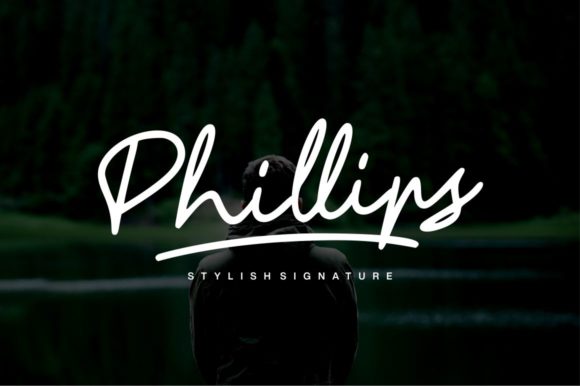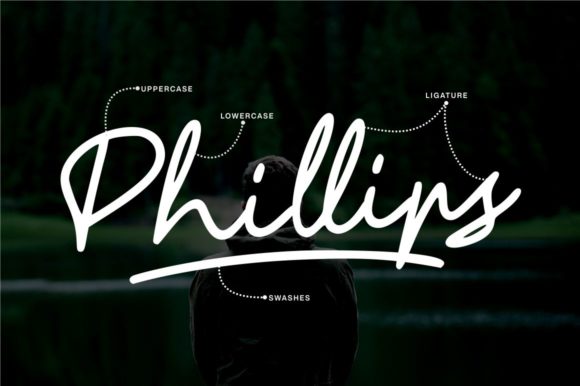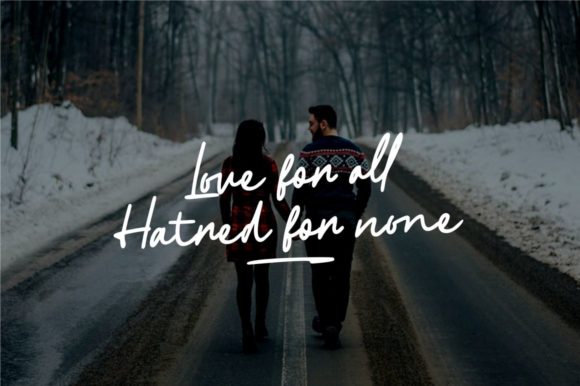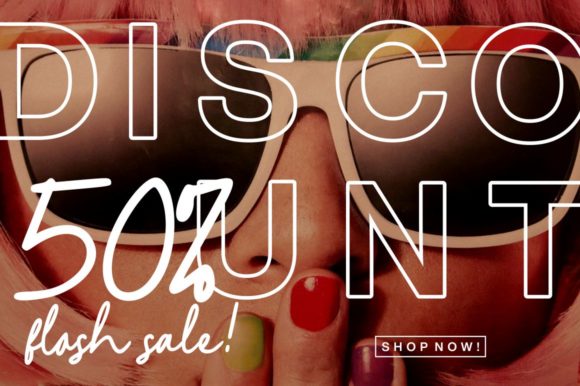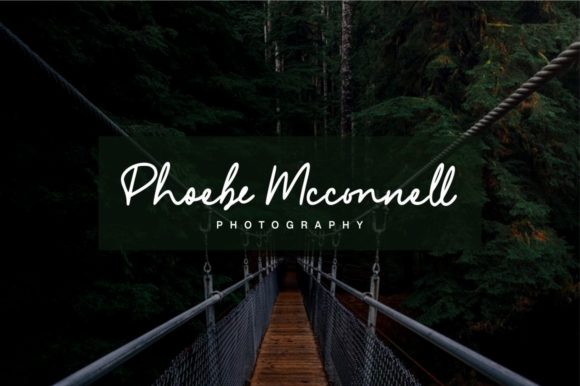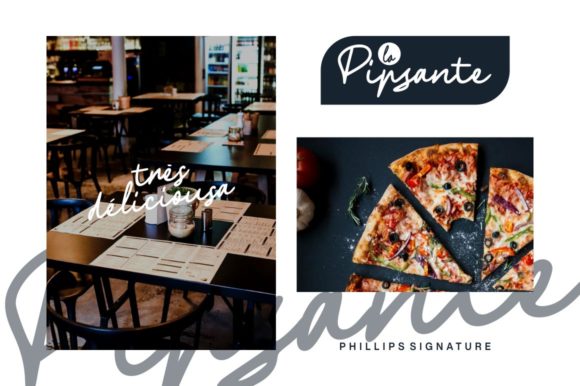
HomeScript FontsPhillips Font Script Fonts Phillips Font FacebookXPinterestWhatsApp Phillips Font Poster 2 Phillips Font Poster 3 Phillips Font Poster 4 Phillips Font Poster 5 Phillips Font Poster 6 Phillips Font Poster 7 Phillips Font Poster 8 Phillips Font Poster 9 Phillips Font Poster 10 Phillips Font Poster 11 About Phillips Font Phillips is a versatile script with a beautiful feel. Use it to turn any design project into a piece of art! DOWNLOAD ON CREATIVE FABRICAThis font is sold and delivered by Creative Fabrica. Font Canyon may earn a commission if you buy through this link. People also explored Dolphin Dolls Font Haystack Font Desyanti Script Font Safira Font Kassidy Marlie Font Graphite Heather Gildan 5000 Mockup Tee Share Lovely Font Wanita Jancuuk Font Krystal Font 343 0 TagsPhillips Font Previous articleBasuki FontNext articleRidin Dirty Font LEAVE A REPLY Cancel reply Comment: Please enter your comment! Name:* Please enter your name here Email:* You have entered an incorrect email address! Please enter your email address here Website: Save my name, email, and website in this browser for the next time I comment. Personal Use Free Arabella Script Personal Use Free Read more about this font Madison Script Personal Use Free Read more about this font Black Friday Personal Use Free Read more about this font Mellow Personal Use Free Read more about this font BLOG The 10 Best Handwriting Fonts to Add Personality to Your Designs 10 of the Best Handwriting Fonts for Adding Personality to Your Designs There will undoubtedly be no other better choice than handwriting fonts to give... Free vs Paid Fonts: Why Investing in Premium Fonts Is Worth It Elegant Wedding Invitation Fonts – Handwritten & Script Fonts Best Fonts for YouTube Videos: Make Your Thumbnails Stand Out